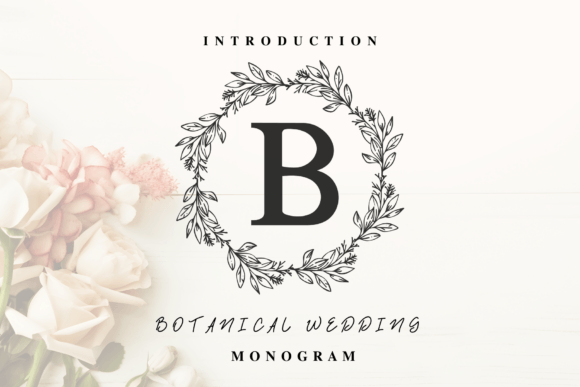
The Elegance of Botanical Wedding Monogram Font
As a designer, I’ve had my fair share of projects that required a touch of elegance and sophistication. One particular project that comes to mind is a wedding invitation suite I designed for a lovely couple. I was determined to create something truly special, but I was struggling to find the perfect font to match their classic yet whimsical theme. That’s when I stumbled upon the Botanical Wedding Monogram Font, and it completely transformed my design.
A Personal Review of Botanical Wedding Monogram Font
- ✨ Elegant and sophisticated design, perfect for special occasions
- ✅ Decorative letters inside a beautiful flower and leaf circle frame add a touch of charm
- 💐 Versatile and easy to use for various design projects, from invitations to wedding cards
- 📚 Well-crafted with attention to detail, making it a high-quality font
- 🤔 Limited character set, which might require some creative workaround for certain designs
- ⚠️ Not suitable for body text or long paragraphs, as it’s designed for titles and headings
The Designer Inspiration Behind Botanical Wedding Monogram Font:
The Botanical Wedding Monogram Font was inspired by the beauty of nature and the elegance of traditional wedding stationery. The designer aimed to create a font that would evoke a sense of sophistication and romance, while also being versatile and easy to use.
| Is the font suitable for body text? | No, the Botanical Wedding Monogram Font is designed for titles and headings, and it’s not recommended for body text or long paragraphs. |